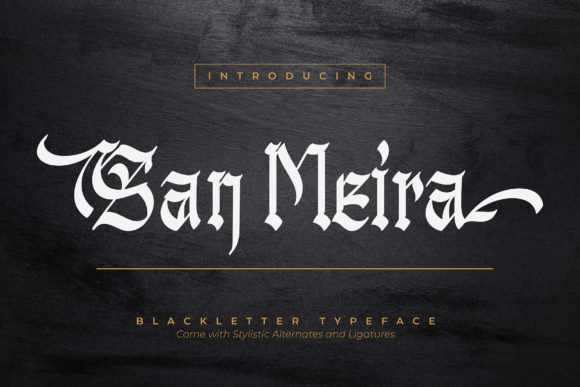
Unleash the captivating charm of San Meira, an extraordinary blackletter font that dances across your designs with an enchanting calligraphy style. As if plucked straight from a medieval manuscript, this font exudes an air of elegance and sophistication that will elevate your creations to new heights.
Picture the allure of your invitations adorned with San Meira's graceful curves, extending a warm welcome to your guests. Envision your greeting cards radiating a touch of timeless beauty, their messages enhanced by the font's intricate details. Let San Meira add a touch of distinctive flair to your branding materials, making your business stand out from the crowd.
With San Meira, your business cards transcend mere contact information; they become miniature works of art that leave a lasting impression. Transform your quotes into visually striking masterpieces, their wisdom amplified by the font's captivating presence. Posters featuring San Meira become captivating visual feasts, demanding attention and admiration from all who behold them.
The possibilities are infinite with San Meira. Its PUA encoding grants you effortless access to a world of glyphs and swashes, empowering you to unleash your creativity and add stunning embellishments to your designs. Unleash the allure of San Meira, and let your imagination soar. Embrace the timeless beauty of calligraphy and captivate your audience with every design.